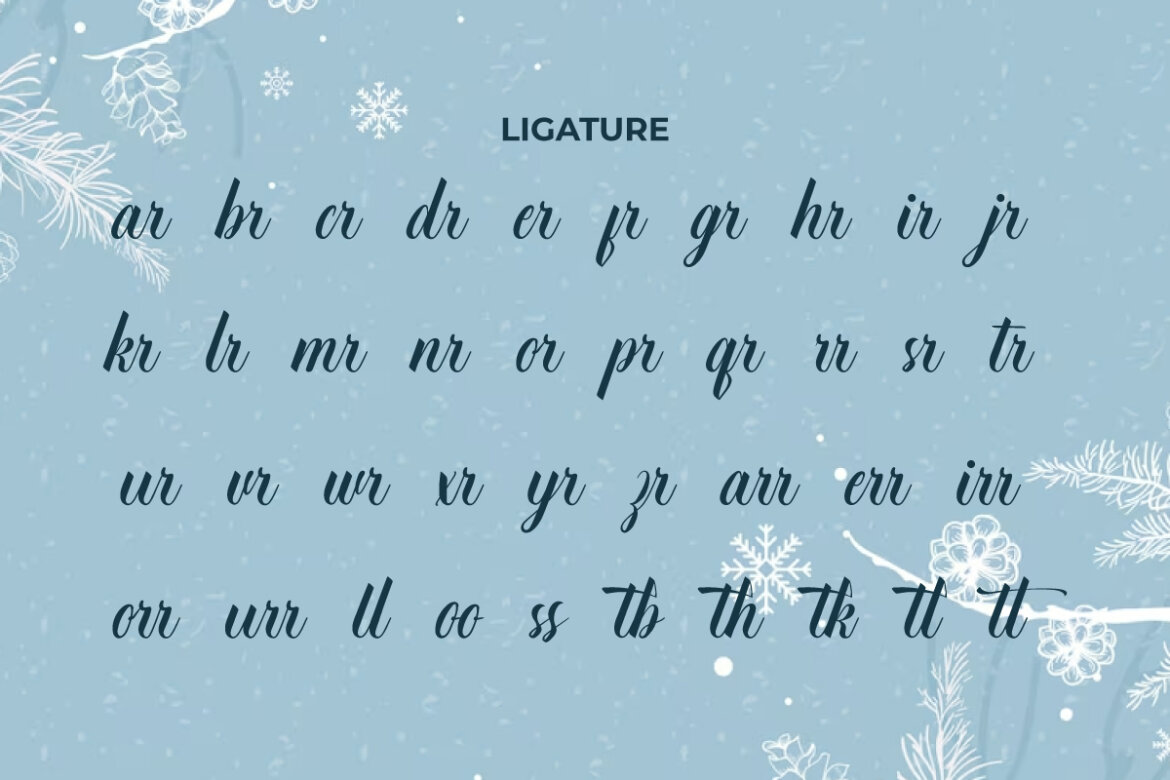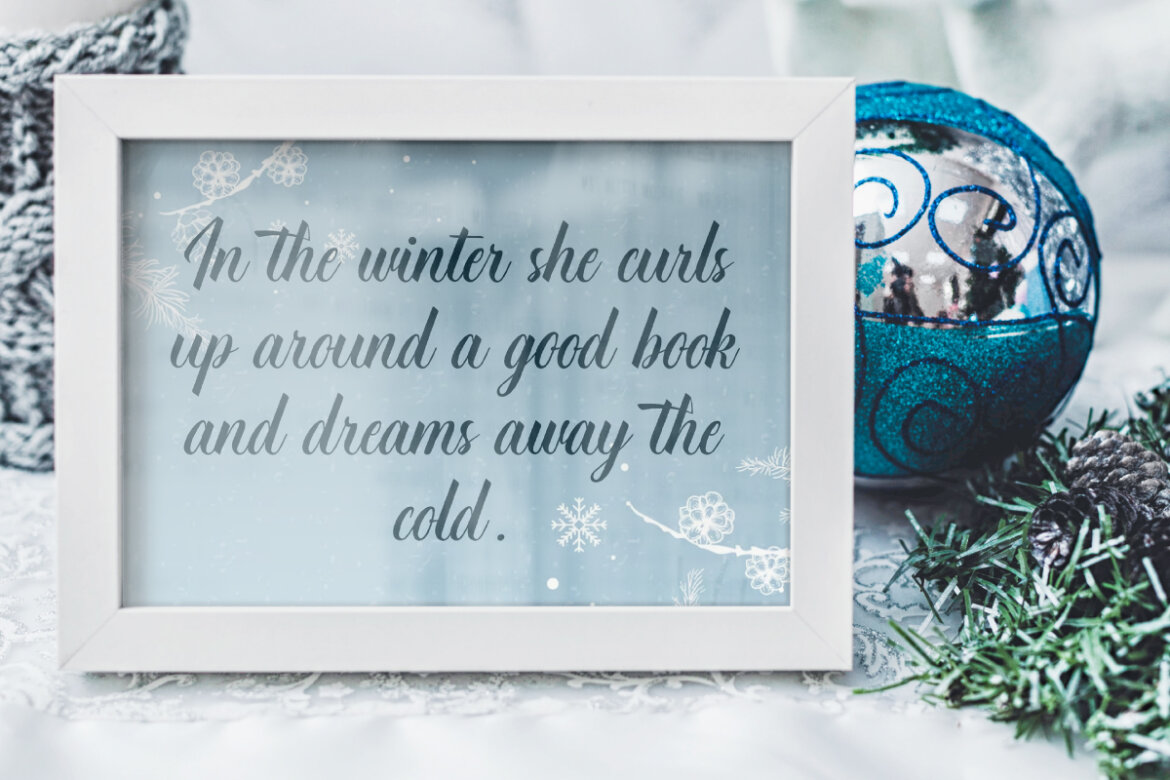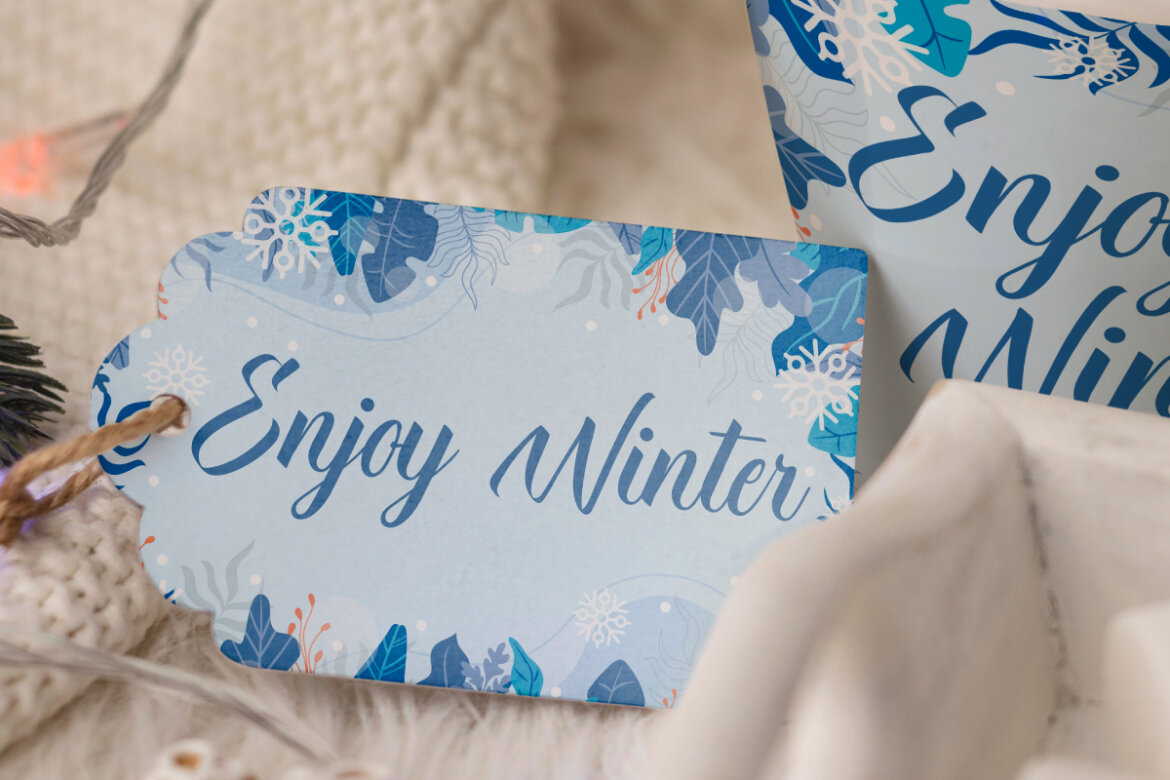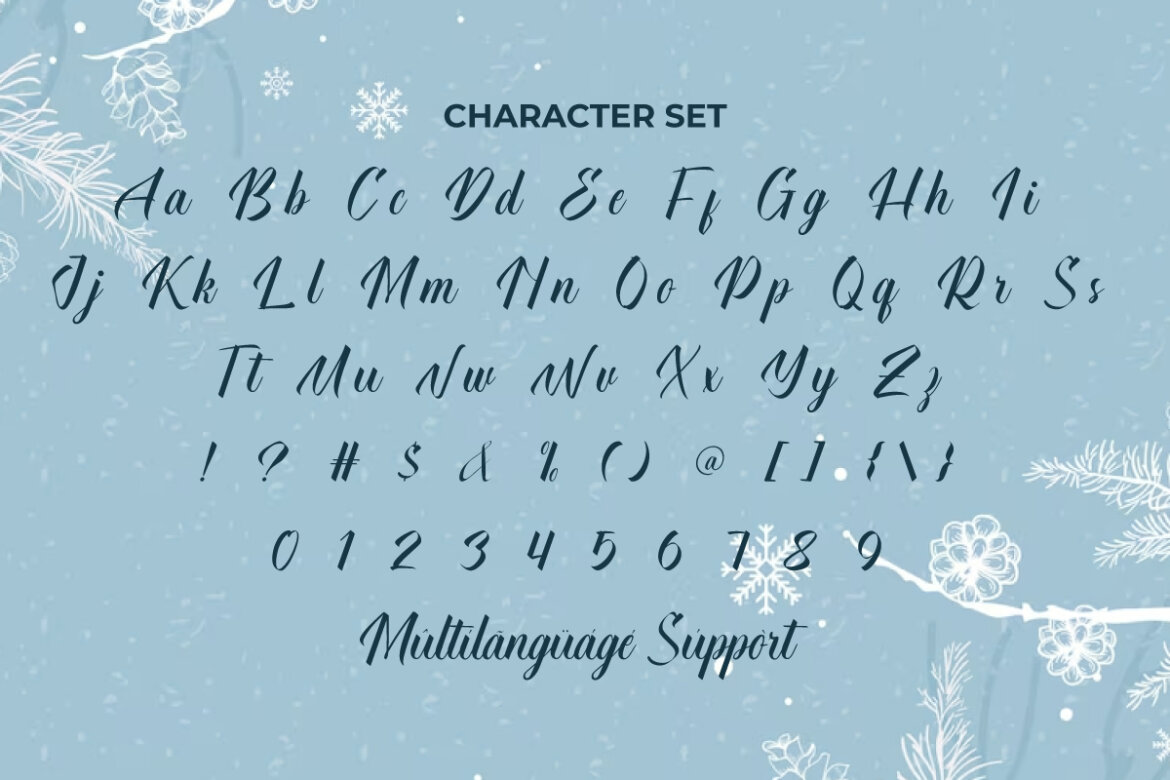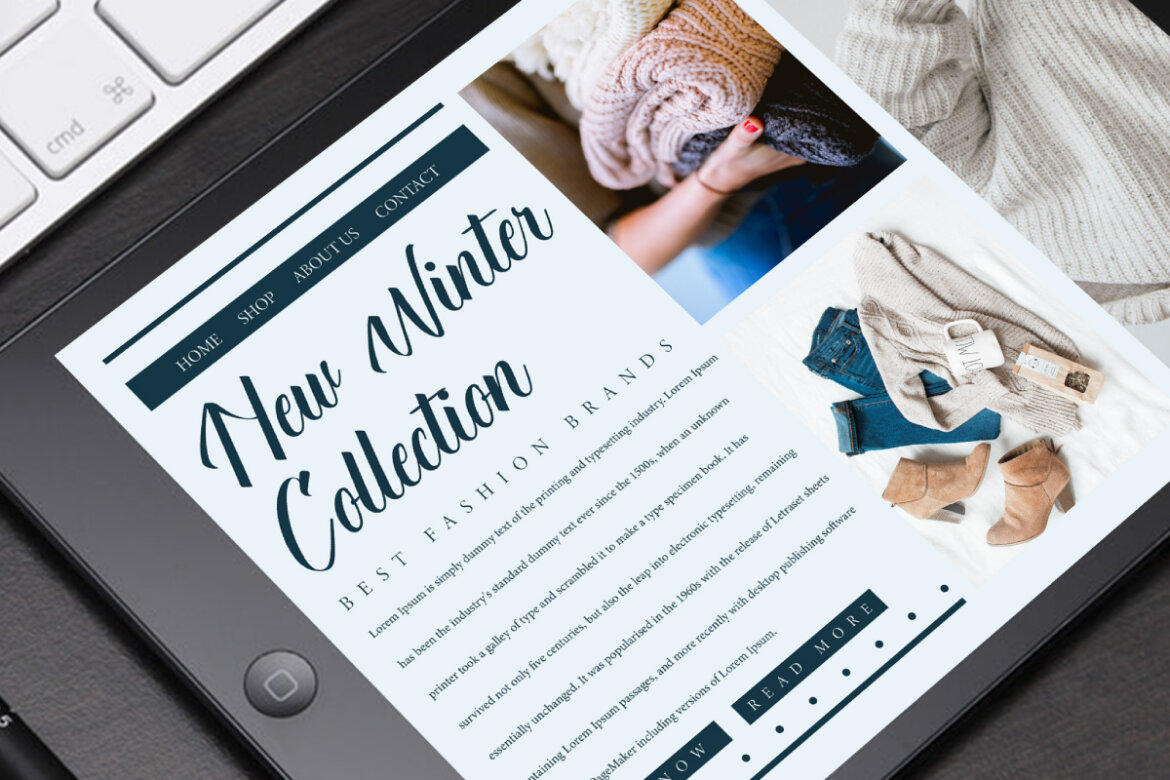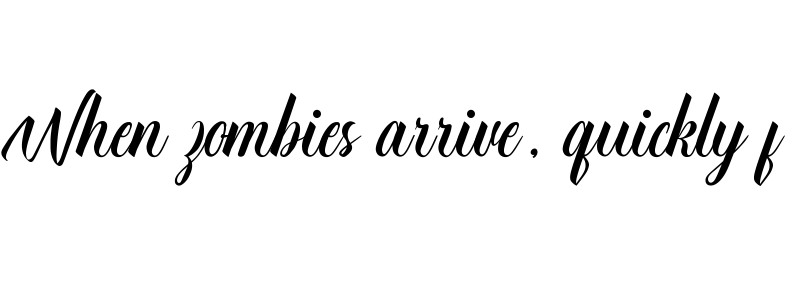
Winter Sweetheart
Winter Sweetheart Font is a beautiful romantic script font with a shivering feel inspired by the elegance and popularity of calligraphy. It also comes with a variety of ligatures allowing for endless creative touches. Perfect for blogs, greeting cards, heading, label tags, magazine covers, quotes, websites, wedding invitations, and many things.
Introducing Winter Sweetheart Calligraphy Font, a beautifully handcrafted typeface that blends romance, elegance, and seasonal charm in every stroke. With its soft curves and graceful handwritten style, this font is the perfect companion for creative projects that need a personal and heartfelt touch.
Winter Sweetheart Calligraphy Font has a neat and sophisticated letterform. It is created to complement your design and make it look more beautiful and attractive. It is very well made with many small Ligature letters with lots of easy to access Ligature lowercase letters that you can use to beautify your designs. It is suitable for advertisements, authors, clothing brand, event organizer, graphic design, home furniture, keepsakes, writers and any kind of projects you have.
Winter Sweetheart Calligraphy Font comes with a complete set of Uppercase and Lowercase Basic Characters, Number, a large range of Punctuation, Symbol and Ligature. It is supported with multilingual characters and ready to use both on Windows machine or Mac with simple installations. It’s tested to work well in the Adobe Apps (Illustrator, Adobe InDesign, Adobe Photoshop) CorelDraw, and others. PUA Encode Characters means you can access all the characters easily – Fully accessible without additional design software.